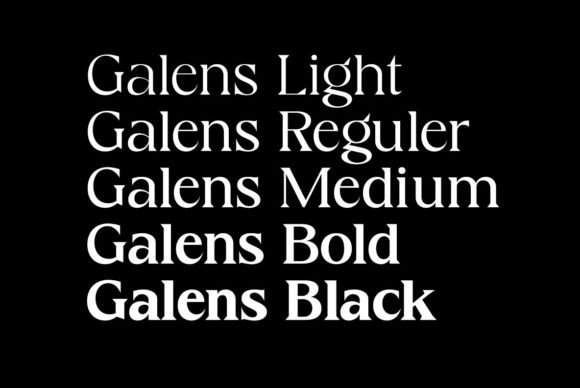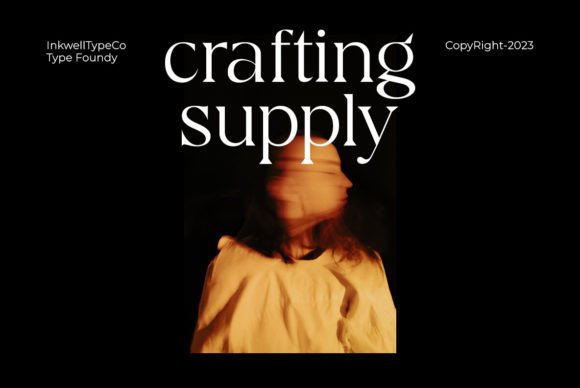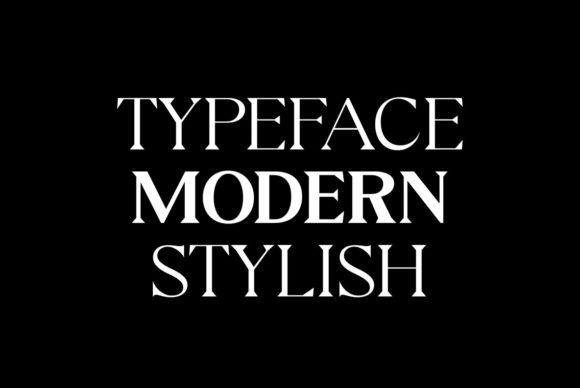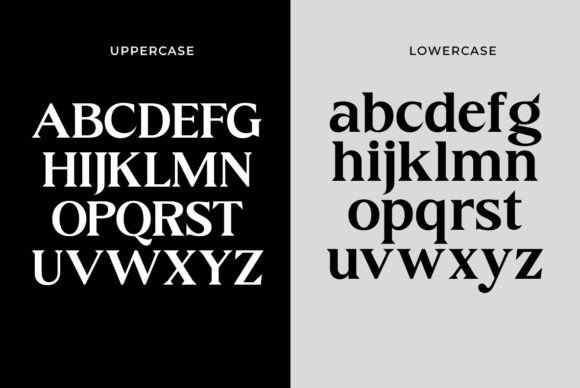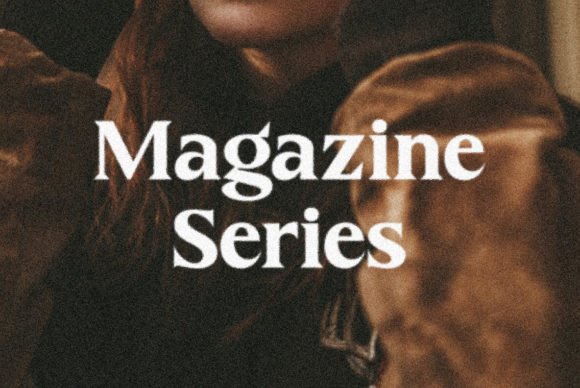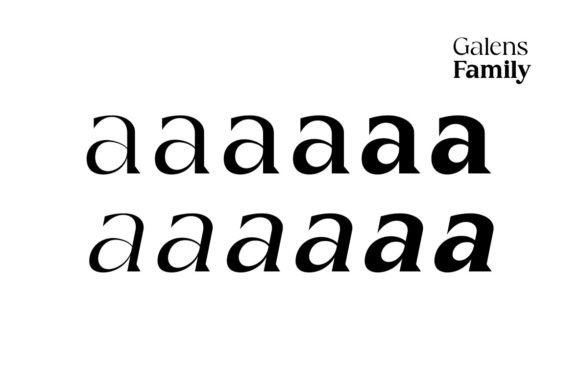
The Typography Epiphany: Discovering Galens Font
I still remember the frustration of working on a design project, hours spent searching for the perfect font, only to end up with a mismatched mess. My client wanted a sleek, modern look, but I was stuck with a jumbled collection of typefaces that refused to harmonize. That’s when I stumbled upon Galens Font, and it changed the game. In this article, I’ll share my journey with Galens, its features, and how to make the most of this versatile font family.
What Makes Galens Font Special?
Designed for versatility and visual coherence, Galens is a comprehensive collection that seamlessly integrates various weights and styles. From sleek and modern to bold and expressive, each member of the Galens family complements the others, ensuring a harmonious typographic palette for your design projects.
My Honest Review of Galens Font
- ✨ Versatility: Galens offers a range of weights and styles, making it perfect for diverse design applications.
- ✅ Clean Lines: The font’s contemporary aesthetics and clean lines make it easy to read and visually appealing.
- 💡 OpenType Features: Galens supports OpenType features, allowing for advanced typographic control.
⚠️ While Galens is an excellent font family, I did notice some limitations. For instance, it may not be the best choice for body text in very small sizes, as some weights can appear too bold or overpowering.
🤔 Additionally, some users may find the number of font files overwhelming, especially if they’re new to working with extensive font families.
The Backstory of Galens Font
Galens Font was designed with the goal of creating a versatile and harmonious typographic palette. The designer, inspired by the beauty of unity and diversity, crafted Galens to offer a range of weights and styles that work seamlessly together. The result is a font family that is both elegant and expressive, perfect for designers seeking a cohesive look.
| Font Name | Galens Font |
| Author | InkwellTypeCo |
Q: What is the Galens font family?
A: The Galens font family is a comprehensive collection of typefaces designed for versatility and visual coherence.